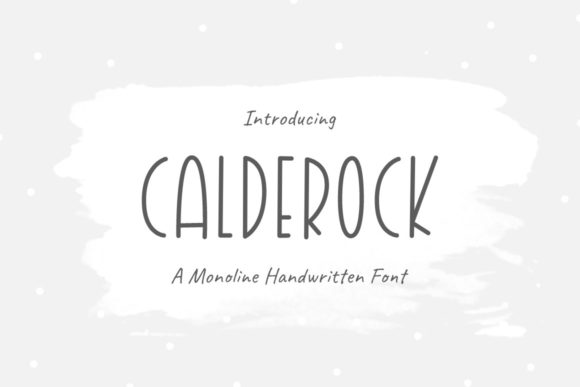
The Designer’s Delight: Exploring the Elegance of Calderock Font
I’ll never forget the time I was working on a branding project for a trendy new coffee shop. My client was particular about the font, wanting something modern, clean, and highly legible. I scoured through my font library, but nothing seemed to fit the bill. That’s when I stumbled upon Calderock Font. Its minimal and neat sans serif design instantly caught my eye, and I knew I had found the perfect match. In this article, I’ll share my experience with Calderock Font, its features, and how to make the most of it in your designs.
An Honest Review of Calderock Font
What I Love About Calderock Font
- ✨ Clean and Minimal Design: Calderock Font boasts a sleek, uncluttered design that makes it perfect for a wide range of projects, from branding and advertising to digital media and print.
- ✅ High Legibility: The font’s clear lines and balanced proportions ensure that it remains easily readable, even at smaller sizes.
- 💡 Versatility: Calderock Font can be effortlessly paired with various design styles, making it an excellent addition to any creative project.
While Calderock Font is an excellent choice for many projects, there are a few minor considerations to keep in mind:
- 🤔 Limited Character Set: Some users have noted that the font could benefit from a more extensive character set, particularly for non-English languages.
- ⚠️ Not Ideal for Body Text: While Calderock Font is highly legible, its clean design may not be the best choice for lengthy body text, as it can appear somewhat sterile.
The Story Behind Calderock Font
While the true origins of Calderock Font are unclear, it’s easy to imagine that its designer was inspired by the clean lines and minimal aesthetic of modern design. Perhaps they sought to create a font that would effortlessly pair with a wide range of design styles, from industrial and technological to elegant and sophisticated.
| Font Name | Calderock Font |
| Author | jimtypestudio |
A: Calderock Font is an excellent choice for branding, advertising, digital media, and print projects that require a clean, modern aesthetic.
A: Yes, Calderock Font supports various OpenType features, including stylistic alternates, ligatures, and glyphs.
A: Absolutely! Calderock Font is highly versatile and can be used in a wide range of applications, from digital media to print materials.